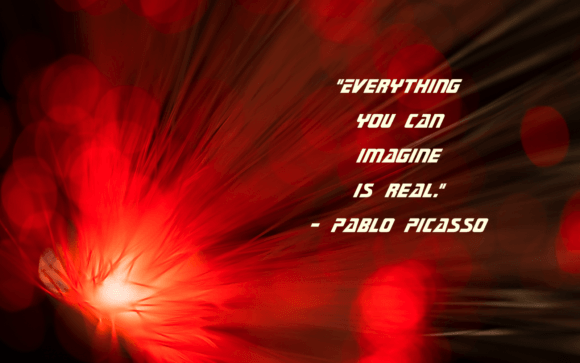
Introducing Futuro Bold Font: Elevate Your Design with a Modern, Standout Look
Step into the future with a typeface designed to inspire and captivate. Futuro Bold Font merges sleek, cutting-edge aesthetics with a sense of bold sophistication, ideal for projects that demand a modern, standout look. Perfect for tech brands, sci-fi themes, or any design that seeks to make a statement, this typeface transforms ordinary text into a visual experience that is both commanding and stylish.
The Essence of Futurism in Typography
Futuro Bold Font embodies the essence of futurism in typography, characterized by clean lines, geometric shapes, and a sense of dynamism. This font is not just a tool for communication; it’s an element of design that can make or break the visual impact of a project. With Futuro Bold, every letter and every word becomes a statement, exuding confidence and innovation.
Key Features of Futuro Bold Font
- Modern Aesthetic: The font boasts a sleek and modern design, making it perfect for projects that require a fresh and contemporary look.
- Bold and Commanding: As the name suggests, Futuro Bold Font is designed to be bold and commanding, ensuring that your message is not just seen but also felt.
- Versatility: This typeface is versatile and can be used across various platforms, from digital interfaces to print materials.
- Elegance and Sophistication: Despite its boldness, the font maintains a level of elegance and sophistication, suitable for high-end brands and designs.
Applications of Futuro Bold Font
Futuro Bold Font’s unique characteristics make it suitable for a wide range of applications. Here are some of the areas where this font truly shines:
- Tech Brands: For tech companies looking to establish a strong and modern brand identity, Futuro Bold Font is an excellent choice.
- Sci-Fi Themes: The font’s futuristic look makes it a natural fit for sci-fi movies, games, and literature.
- Marketing and Advertising: In marketing and advertising, making a statement is crucial. Futuro Bold Font helps ensure that your message stands out.
- Web Design: For websites that aim to have a modern and cutting-edge look, this font can be a valuable asset.
Tips for Using Futuro Bold Font Effectively
To maximize the impact of Futuro Bold Font, consider the following tips:
- Use it Sparingly: While the font is bold and attention-grabbing, using it sparingly can make it more effective. Consider using it for headings or key messages.
- Combine with Simplicity: Pair Futuro Bold Font with simpler fonts for body text to create a balanced and harmonious design.
- Experiment with Colors: The font looks great in bold colors, but don’t be afraid to experiment with gradients or metallic effects to enhance its futuristic appeal.
- Consider Readability: Ensure that the font size and line spacing are optimized for readability, especially for digital platforms.
Futuro Bold Font is more than just a typeface; it’s a design statement. It embodies innovation, elegance, and a bold aesthetic that’s perfect for projects looking to make a lasting impression. Whether you’re a designer, a craftsperson, or a brand looking to elevate your visual identity, Futuro Bold Font offers the tools to transform your work into a commanding and stylish visual experience. Embrace the future of typography and let Futuro Bold Font guide your creative journey.
With Futuro Bold Font, the possibilities are endless. It’s time to elevate your designs and make a bold statement with a font that’s truly out of this world.